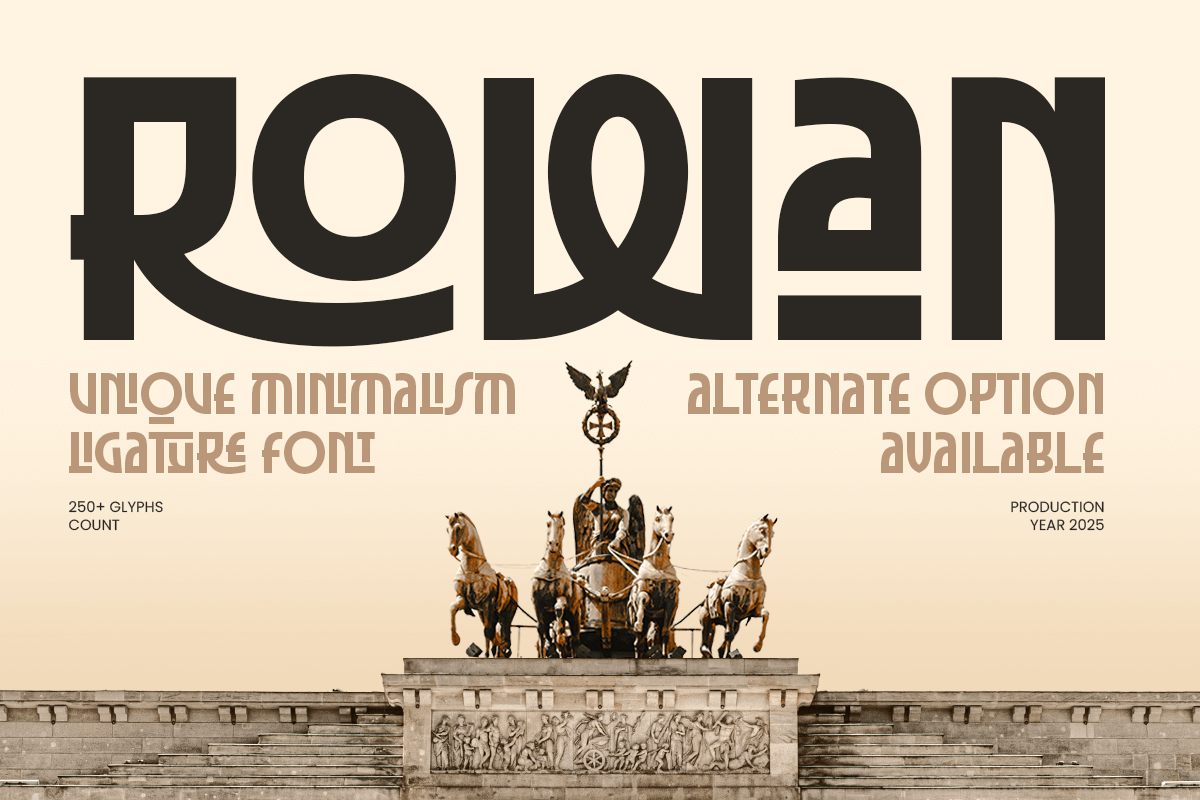
Rowan
-Unique Minimalism Ligature FontRowan - Unique Minimalism Ligature Font
ROWAN is a unique minimalism ligature font that combines refined simplicity with creative character. Designed with clean lines and elegant letter connections, this typeface brings a sense of modern sophistication to any design project — from branding to editorial layouts.
Perfect for logos, invitations, magazines, and luxury product packaging, ROWAN delivers timeless beauty with a contemporary edge. The handcrafted ligatures and sleek proportions add personality and flow, making it ideal for designers seeking a distinctive yet minimalist typeface.
Inspired by modern aesthetics and geometric harmony, ROWAN elevates every composition with style and balance. It’s versatile enough for fashion brands, lifestyle identities, or boutique businesses looking for an elegant and memorable font.
ROWAN – Unique Minimalism Ligature Font Features
Elegant serif font with creative ligatures and alternates
Perfect for logos, branding, fashion, and editorial layouts
Minimalist and refined letterforms for modern elegance
Adds luxury and sophistication to both print and digital designs
OpenType features for advanced typographic creativity
Define elegant simplicity with ROWAN – the ultimate minimal ligature font for modern, stylish, and luxury branding. ✨